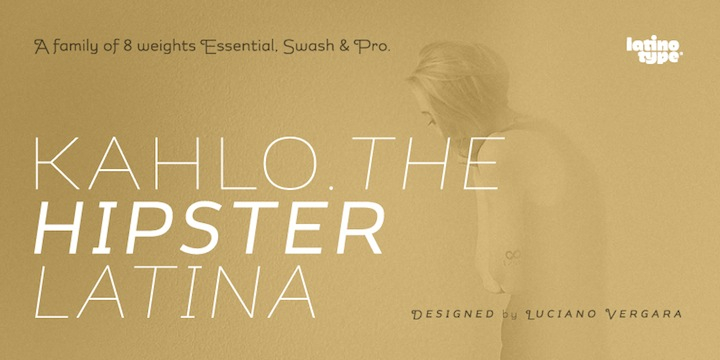
Kahlo Complete is a sans serif font collection published by Latinotype.
Kahlo is a Latin style hipster typography, to is a formal and elegant option for designers. Is a font with four weights and italics, initial capital letters, have some alternate characters and ending.
Is a typeface best suitable for magazine headlines, posters, logos, cosmetics packaging, advertising etc.